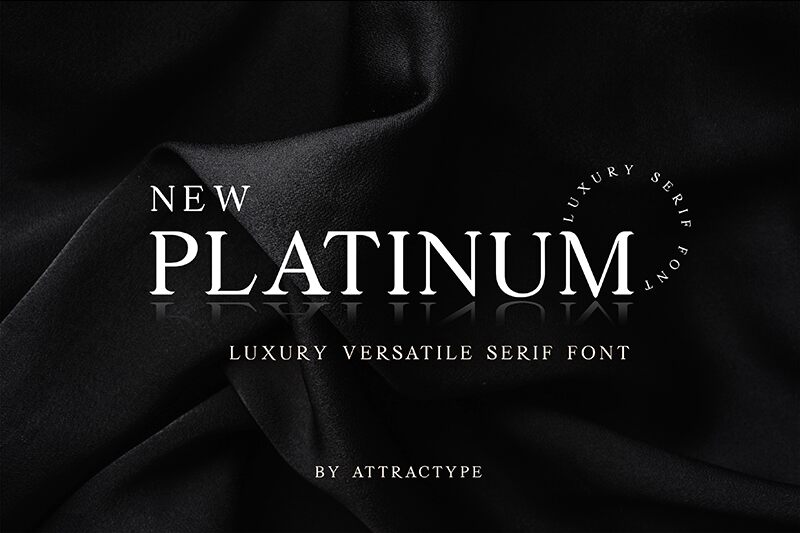
New Platinum font is a classic collection of elegant and sophisticated characters made with smooth transitions. Designed by Saefulloh, it displays a traditional aesthetic, offering a pleasurable experience for every reader. This serif free font features curated lines, noticeable endings and contrasting parts that build unique styles that combine smoothly within historical and modern projects.
New Platinum blends geometric shapes with organic strokes giving you exactly what you need to upgrade both small size typography and large blocks of text for magazines, newspapers and books. Other use cases can be branding design projects, logos, labels or product packaging.
New Platinum